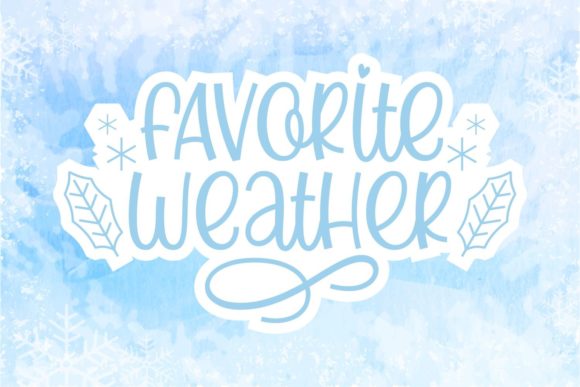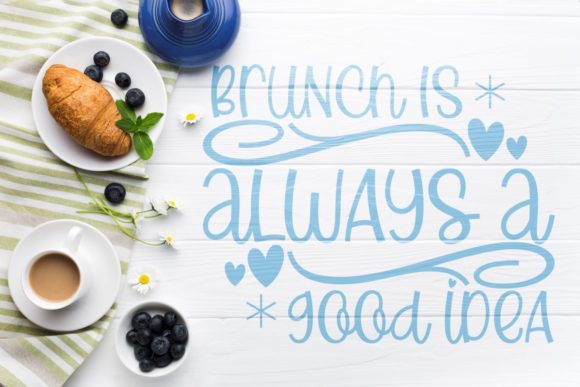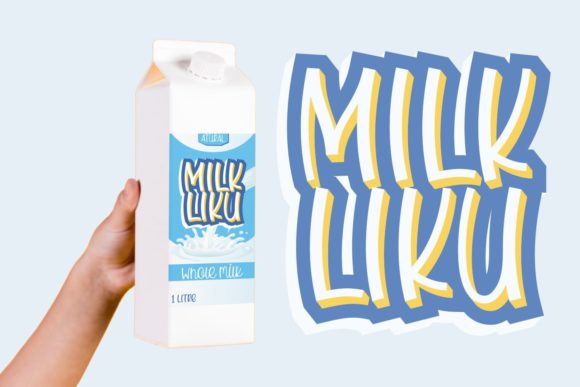
Introduction to Love Peace Joy Font
Love Peace Joy is a cute and joyful handwritten font.
👤 Author Rifki (7ntypes)
Whether you use it for cartoon related designs, children games or just any creation that requires a lovely touch, this font will be an amazing choice .
Love Peace Joy Font offers exceptional quality and versatility, making it a valuable addition to your design toolkit. Whether you’re creating for personal projects or commercial use, Love Peace Joy Font delivers professional results.